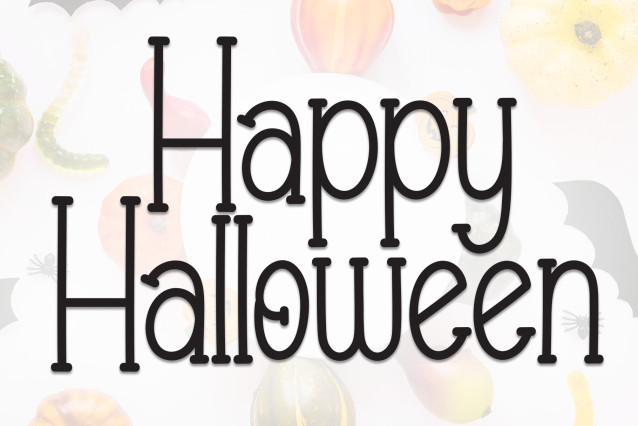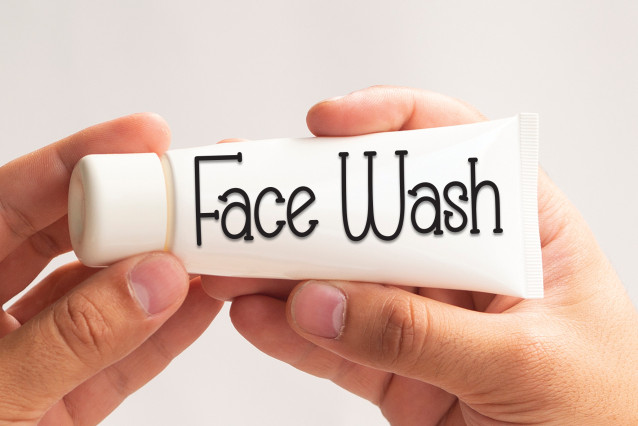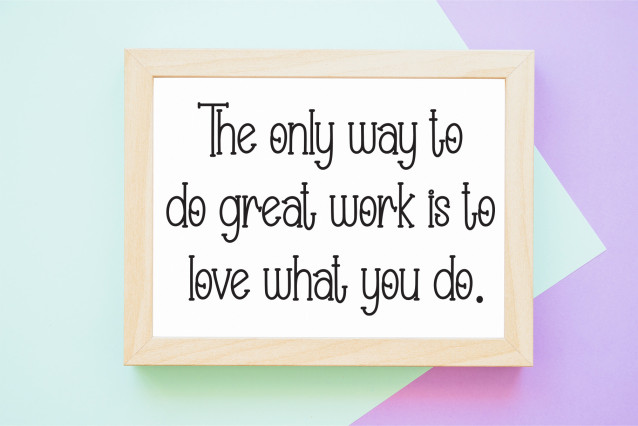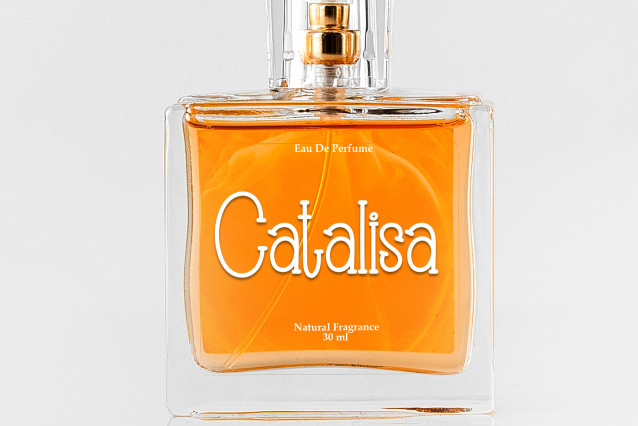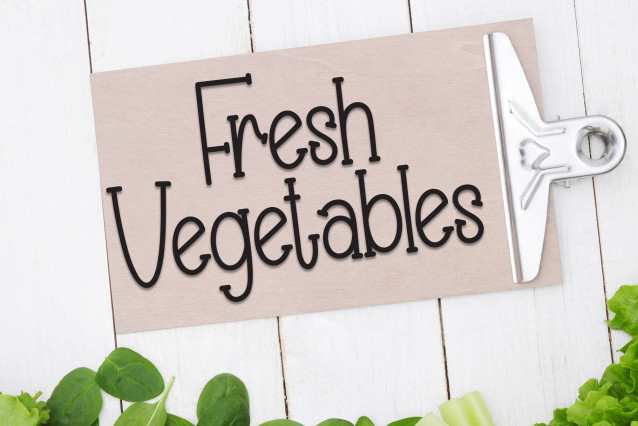
Happy Halloween Display Font
Happy Halloween Display Font is a charming serif handwritten font that adds a playful and spooky touch to your Halloween designs. Its elegant curves and festive flair make it perfect for creating fun and eye-catching Halloween invitations, decorations, and more.